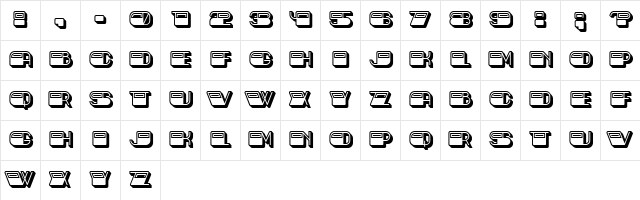
Toledo Partial Regular
Design Context for Toledo Partial
Toledo Partial is a composed and adaptable typeface that performs quietly and consistently across a wide range of design contexts.
Pro Tip: Use Toledo Partial in both headline and body roles to test its range before committing to a single application.